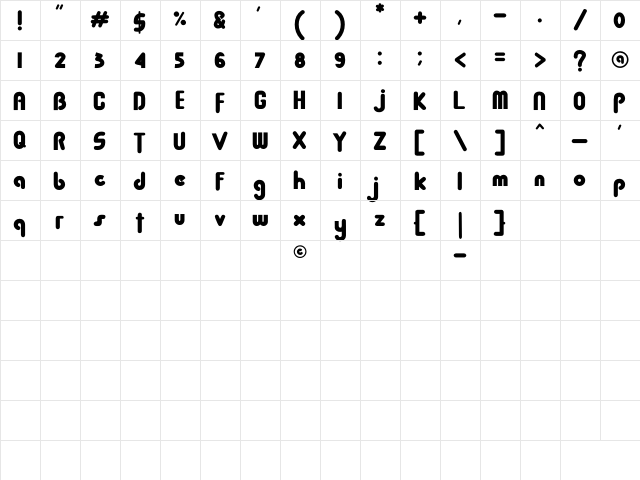
Baby Dollar ll Regular
| Designer | hindro cholis |
Design Context for Baby Dollar ll Typeface
Baby Dollar ll is a composed and adaptable typeface that performs quietly and consistently across a wide range of design contexts.